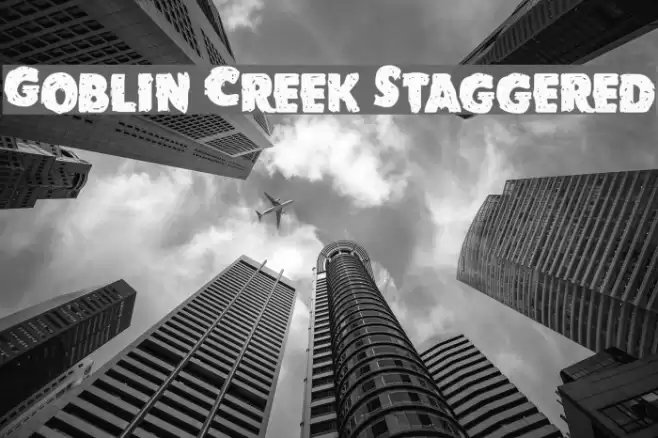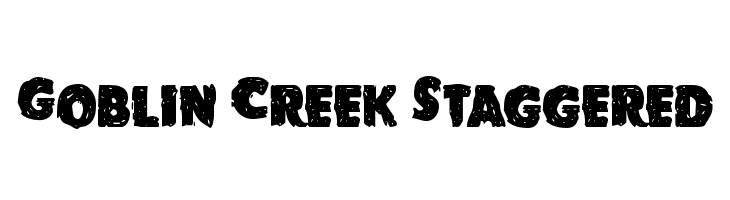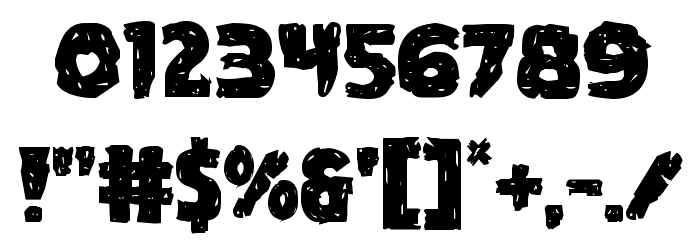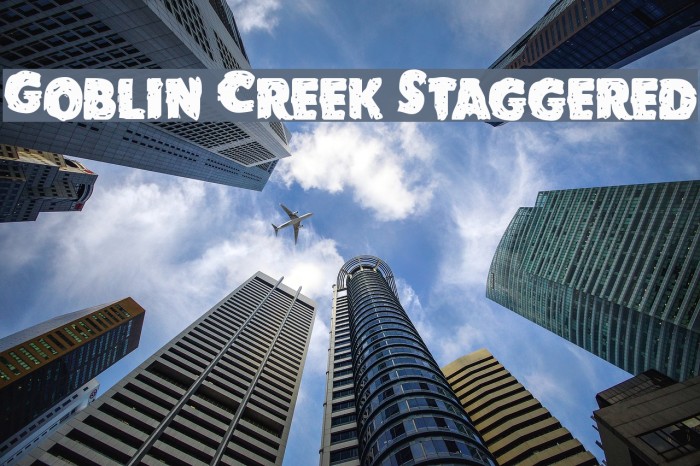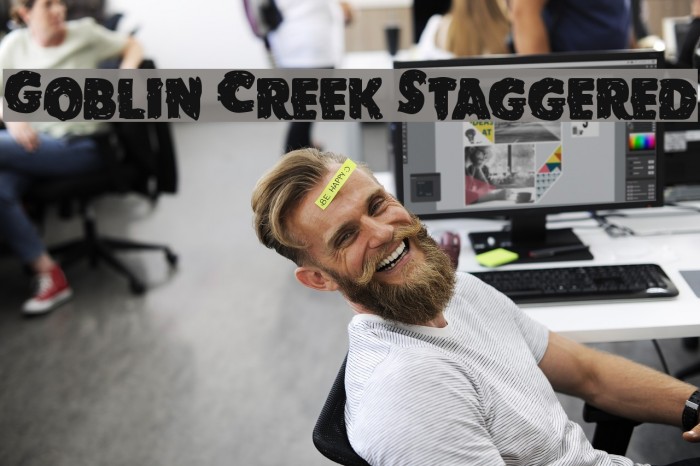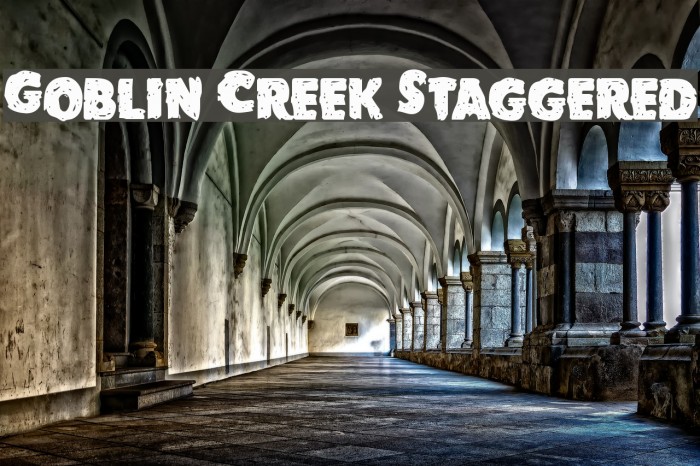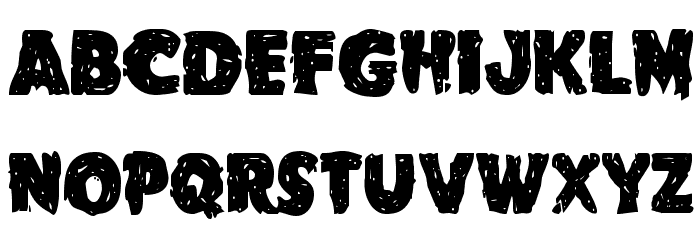
Goblin Creek Staggered Font
Goblin Creek Staggered Description
This font features a bold and playful design with a rugged, textured appearance. The characters are heavily stylized, giving them a unique and quirky look, reminiscent of hand-drawn or carved letters. The irregular edges and varying thicknesses add to its whimsical charm, making it stand out in any design. The font maintains a consistent weight throughout, ensuring readability despite its decorative nature. Its distinct style is perfect for projects that require a touch of creativity and fun.
A bold, textured font with a playful and rugged design from Horror fonts.
- Proposed Projects: Ideal for Halloween-themed designs, children's book covers, playful posters, and creative branding projects.